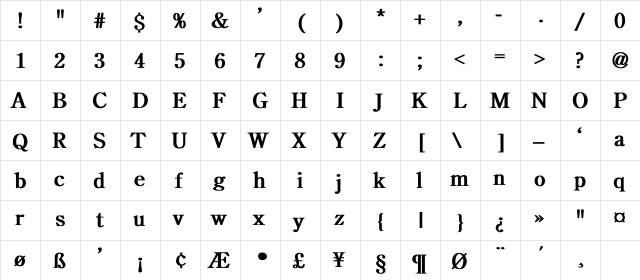
BackRoad Modern Light Bold Bold
Design Context for BackRoad Modern Light Bold Typeface
BackRoad Modern Light Bold offers clean, dependable letterforms without strong stylistic allegiance, making it a practical choice for designers who need flexibility. Its bold stroke weight gives it real presence on the page.